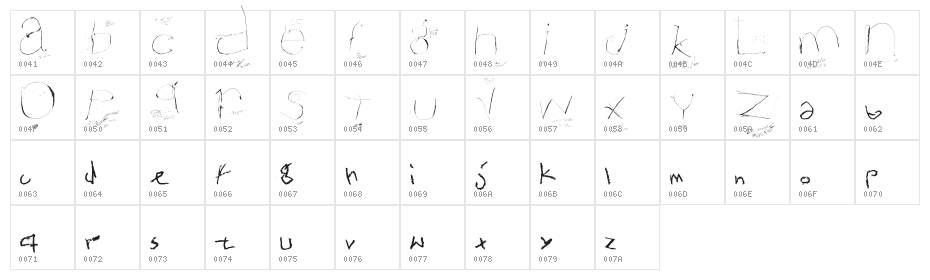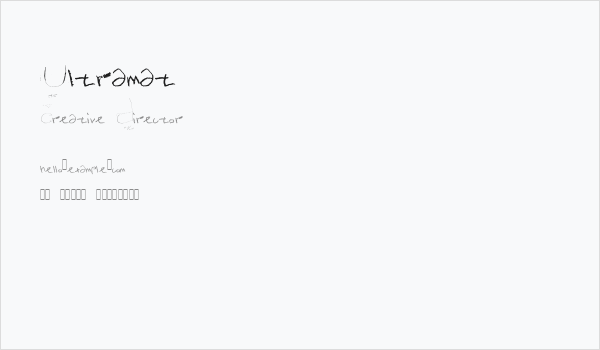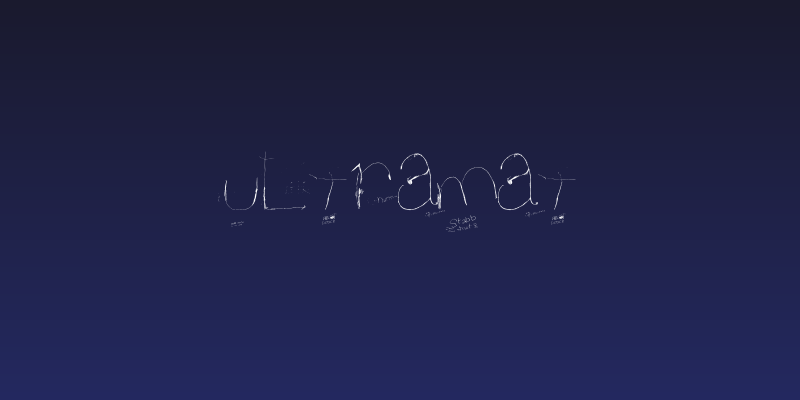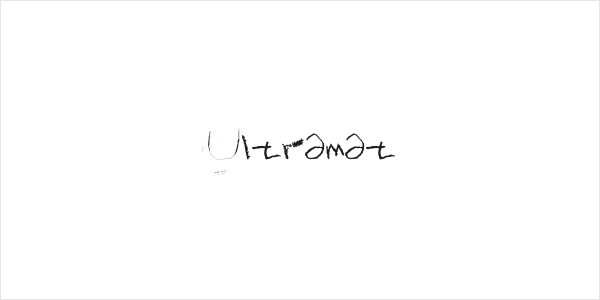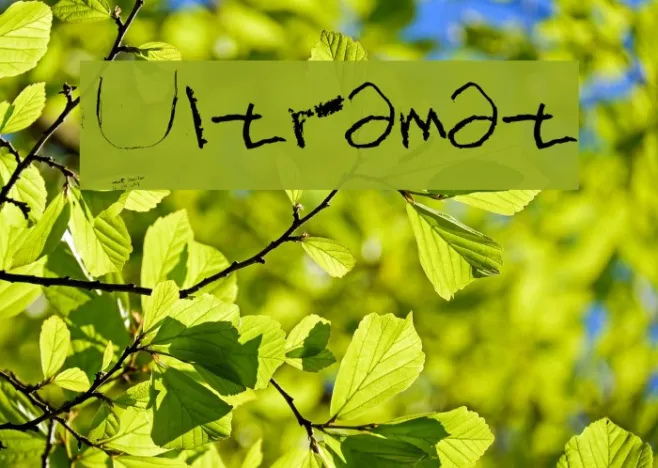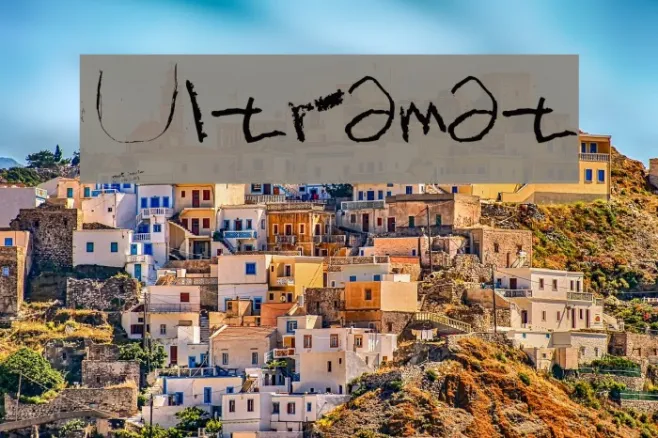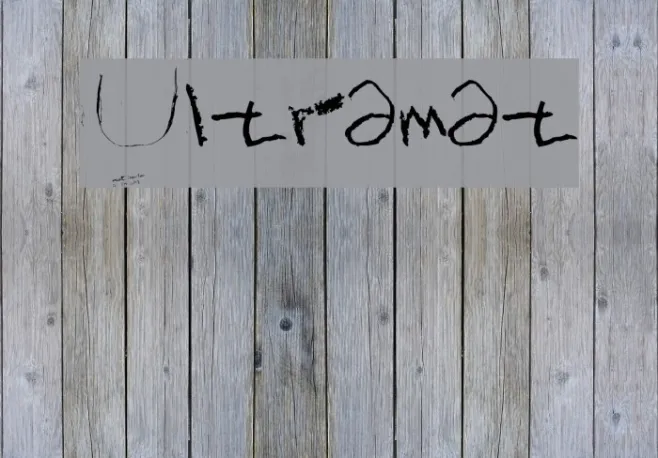
Ultramat Font
Ultramat Description
This font features a distinctive, hand-drawn style that conveys a sense of spontaneity and artistic flair. The characters are irregular and have a rough, textured appearance, giving them a dynamic and expressive quality. The uppercase and lowercase letters maintain a consistent style, with exaggerated curves and strokes that suggest a playful, informal tone. The numbers and special characters follow the same aesthetic, ensuring a cohesive look across all glyphs. This font is ideal for projects that require a personal touch or a creative, unconventional approach.
ULTRAMAT UPPERCASE
ULTRAMAT LOWERCASE
ULTRAMAT OTHER CHARS
| Proposed Projects | Ideal for artistic projects, personal branding, creative posters, and informal invitations. |